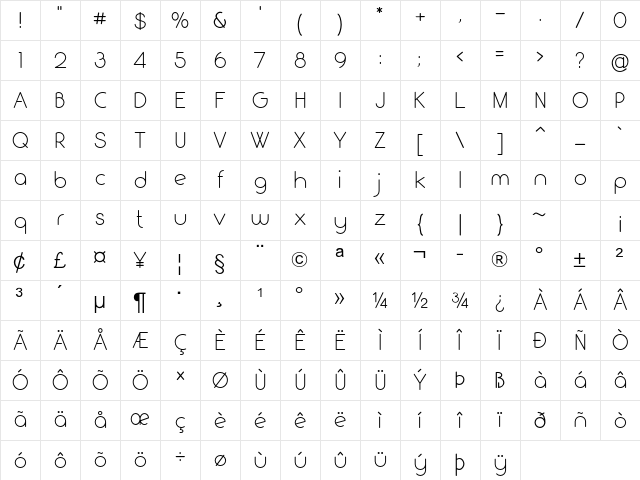
Rounder Regular
Design Context for Rounder
Rounder softens its letterforms with rounded terminals, giving it an approachable, friendly quality that works well in consumer-facing and digital contexts.
Font Pairing: Pairs well with a rounded or humanist sans for body copy, maintaining the friendly tone without relying on Rounder to carry extended reading.
Pro Tip: Use Rounder for UI elements, app interfaces, and anywhere a friendly, approachable tone needs to be maintained without sacrificing clarity.